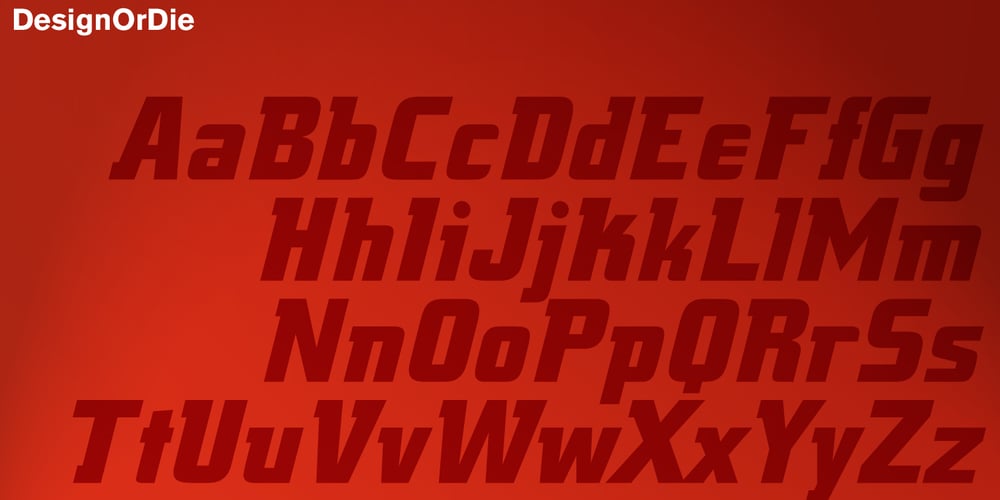
Design Or Die
Design Or Die font
Design Or Die Font Family was designed by Luis Mendo and published by Type-Ø-Tones. Design Or Die contains 1 styles and family package options. Many people asked why we removed Design or Die of our collection. After years of hibernation in our vault, one of the sexiest italics of the Classic Type-Ø-Tones is back. New subtle changes for a definitive version of this Luis Mendo type.